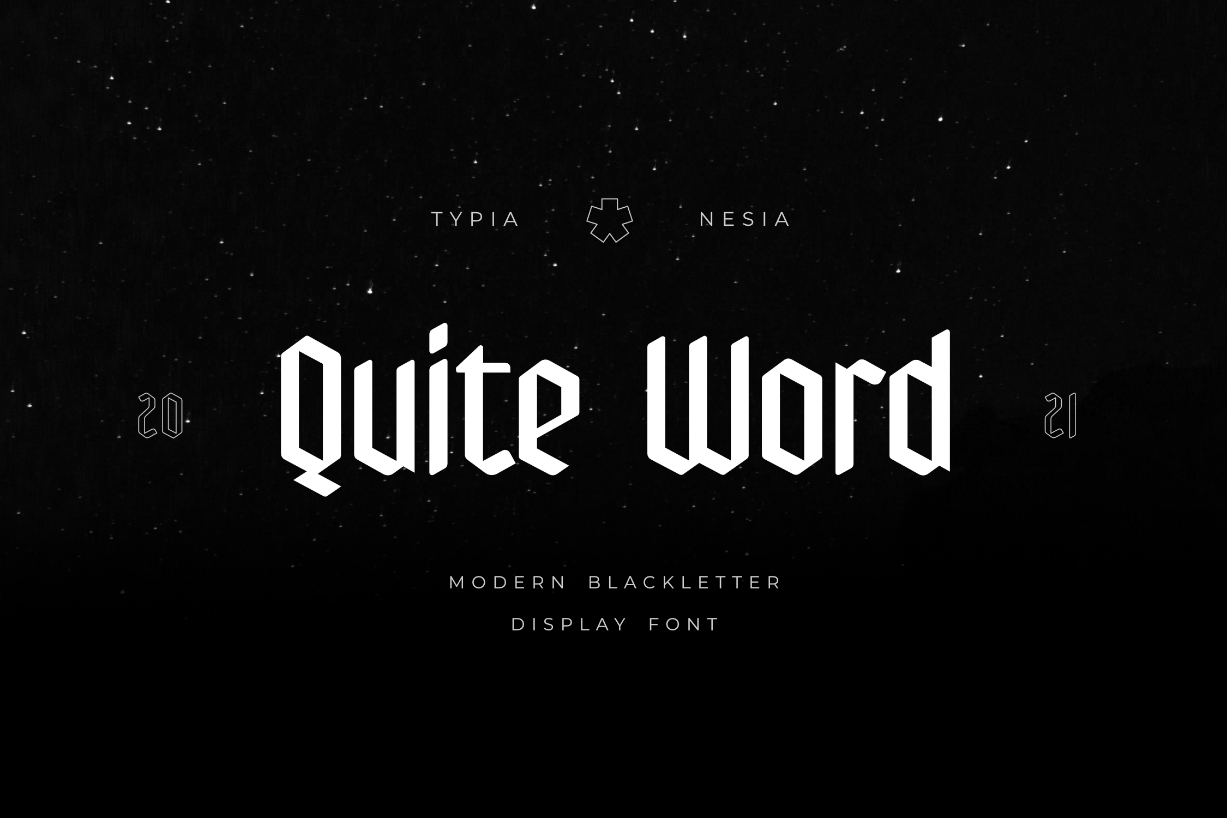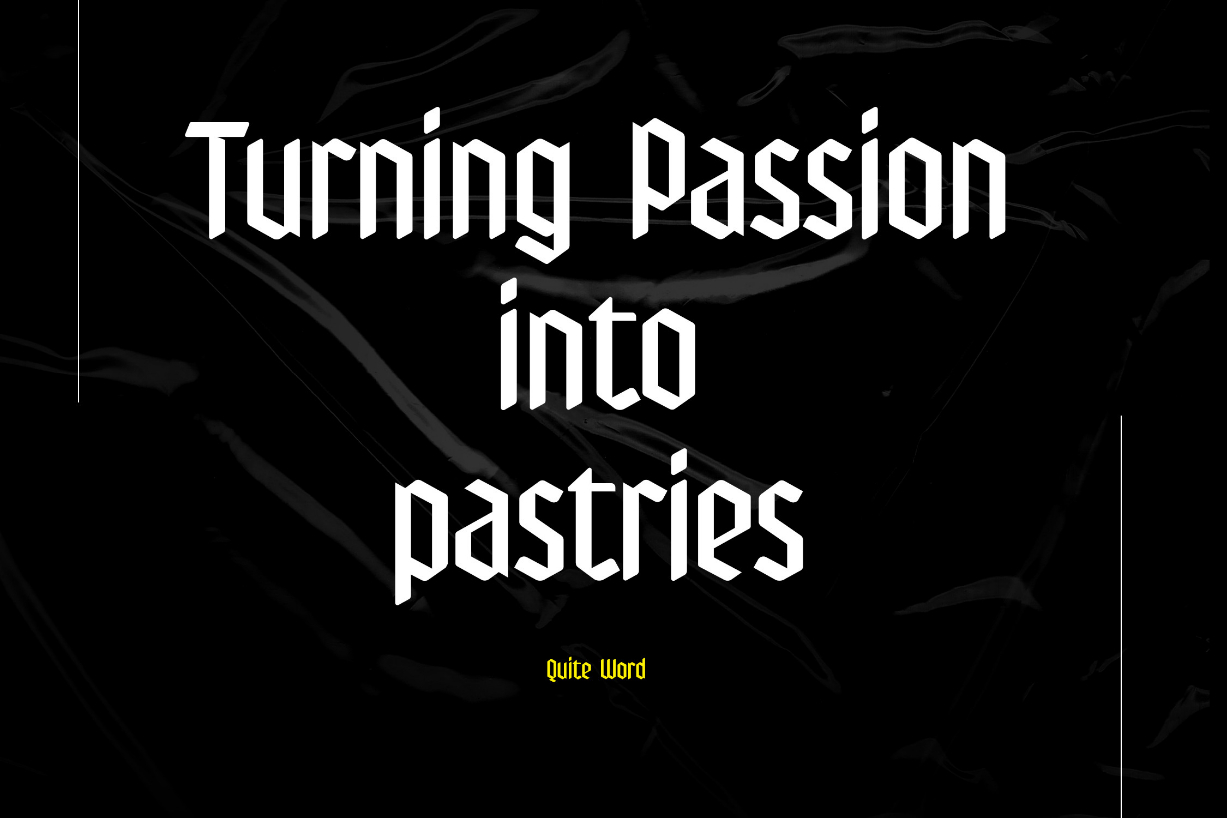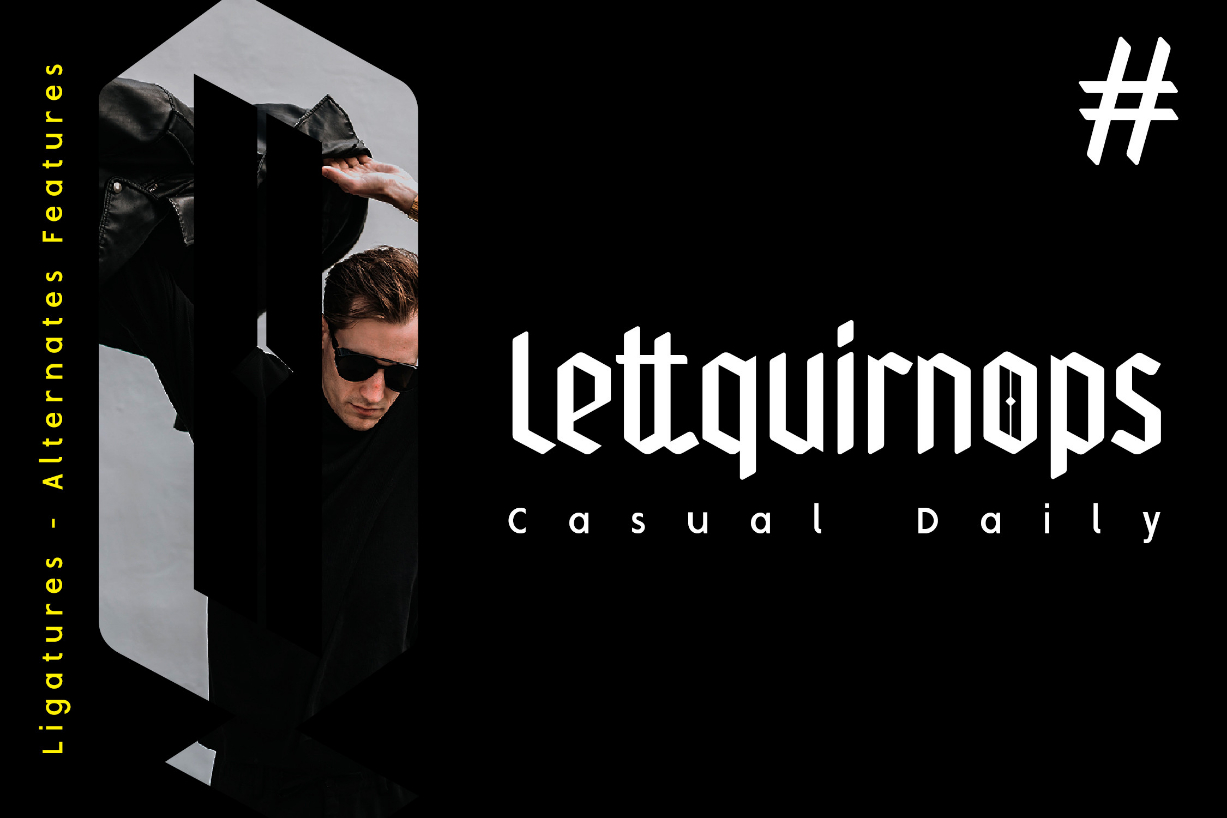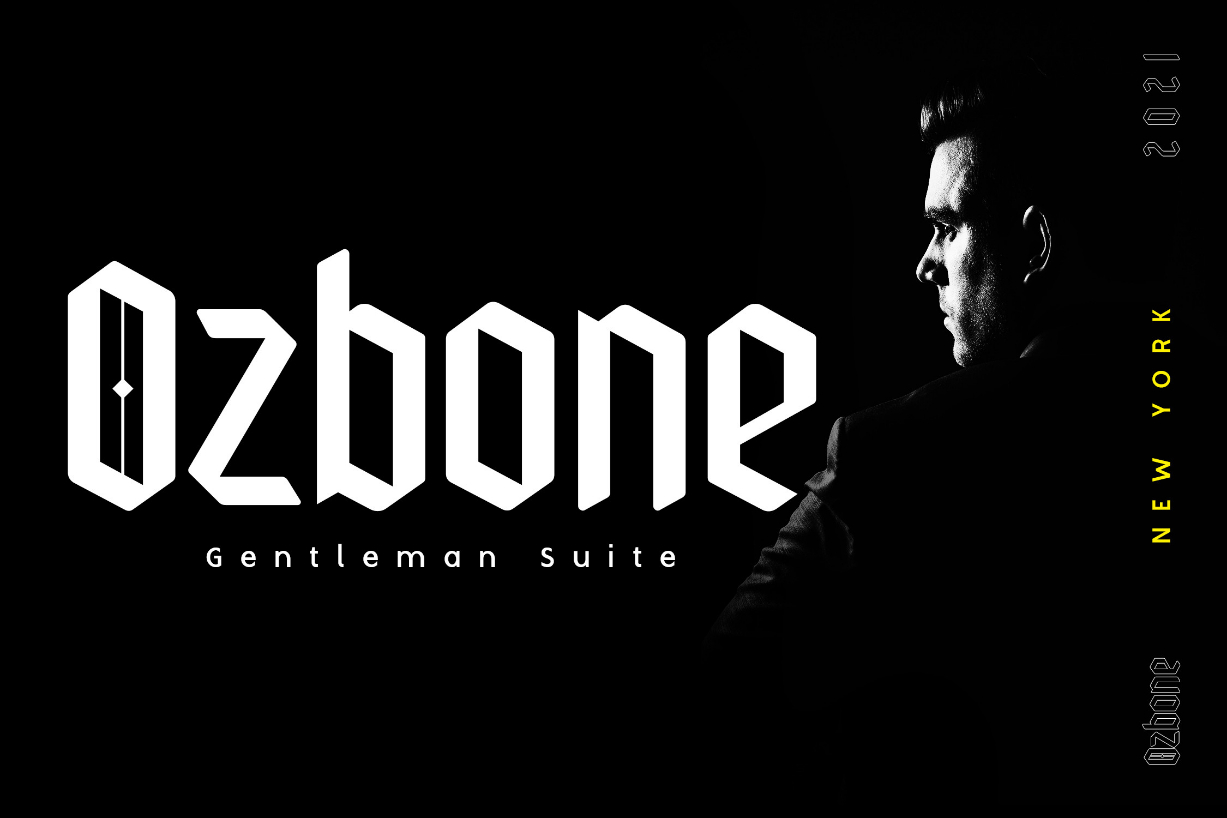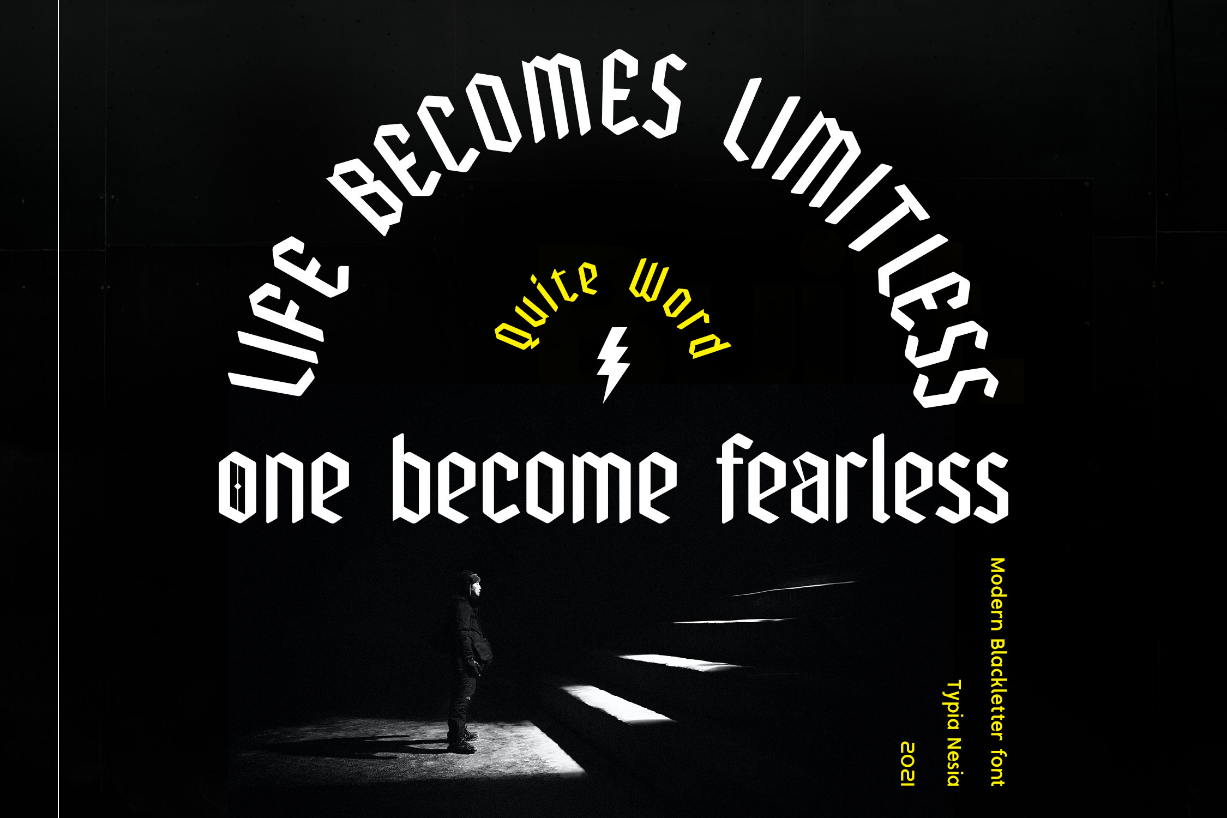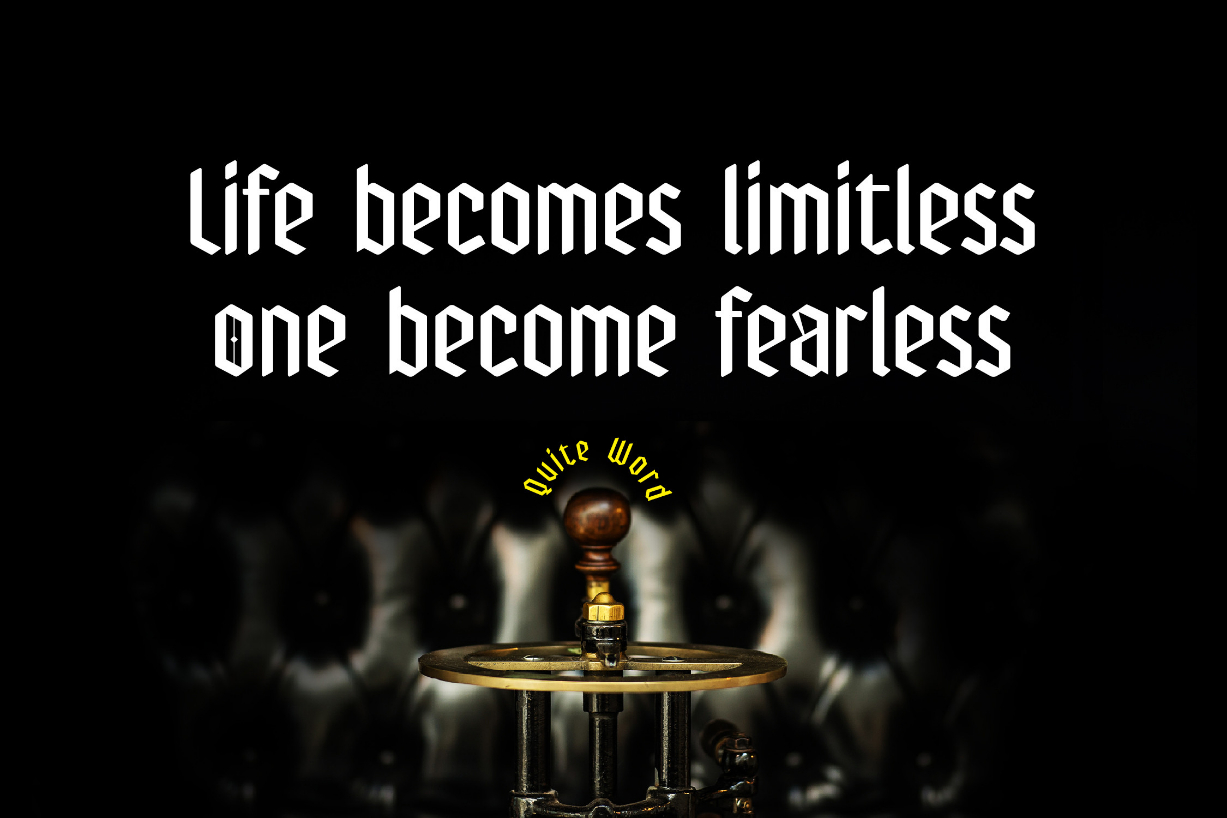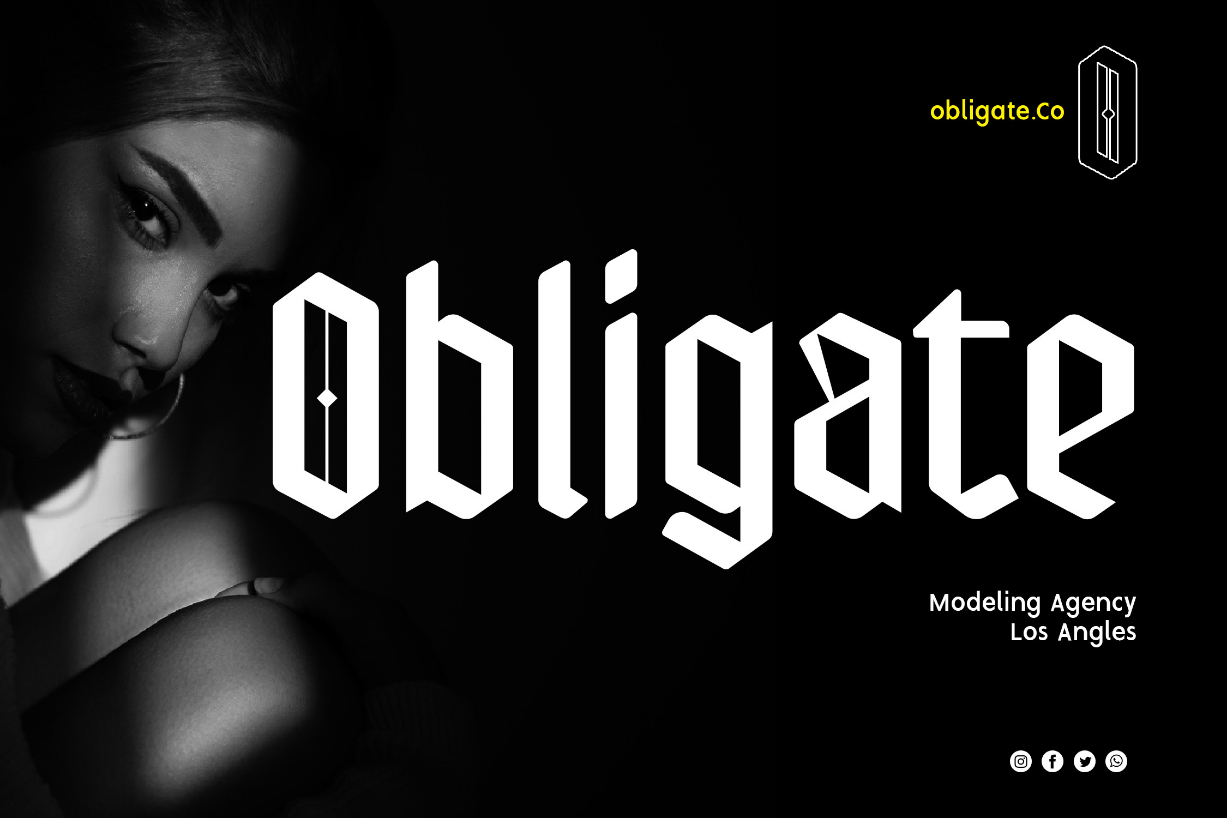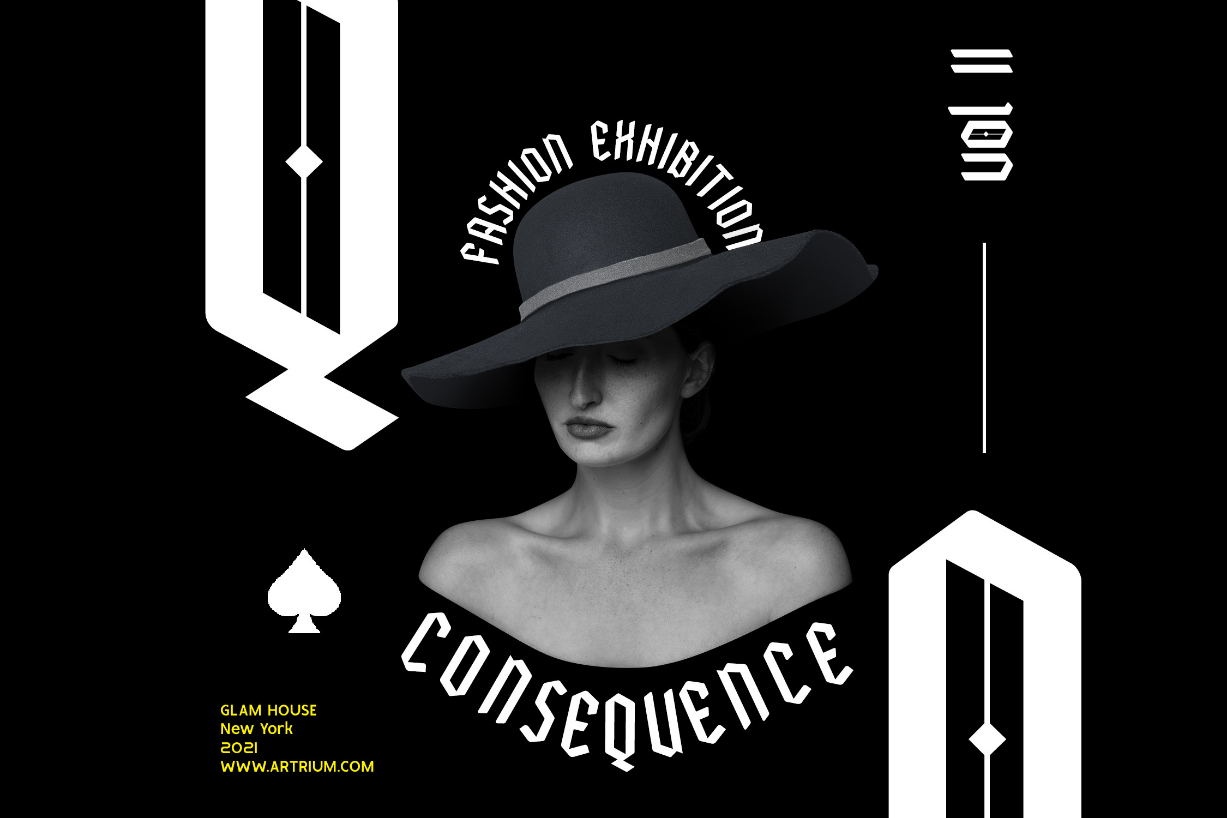
Quite Word Font
About Quite Word Font
Quite Word is a modern and fashionable blackletter font. Add it confidently to your favorite creations and let yourself be amazed by the outcome generated.